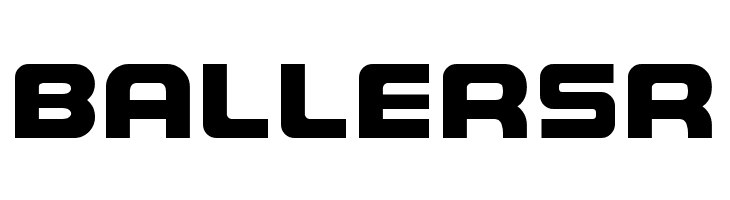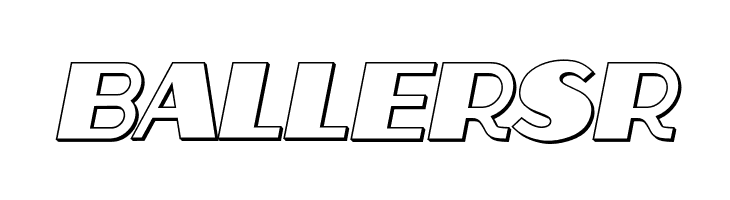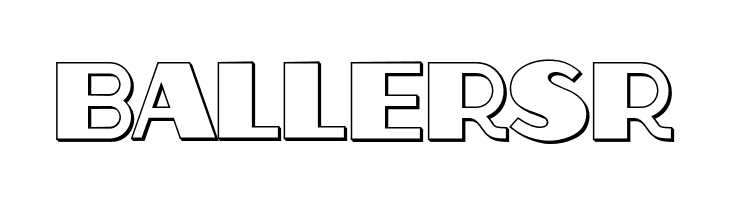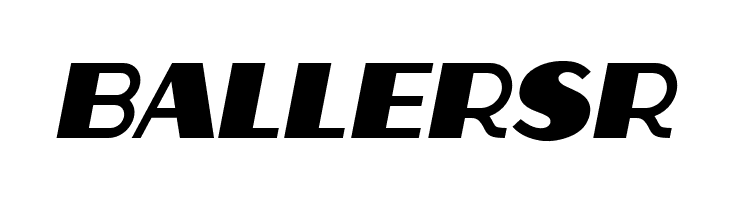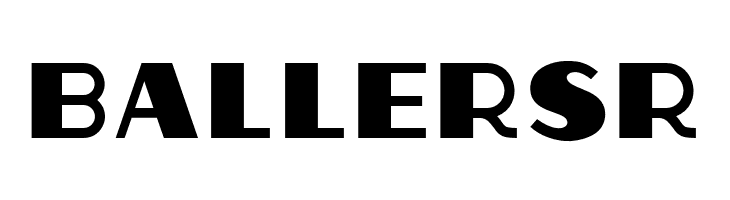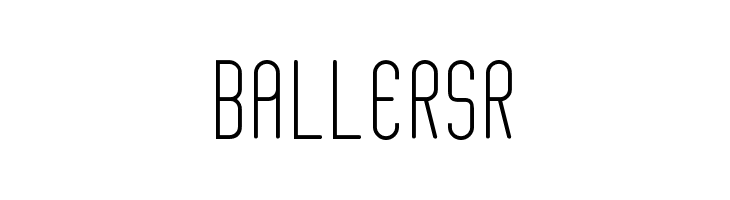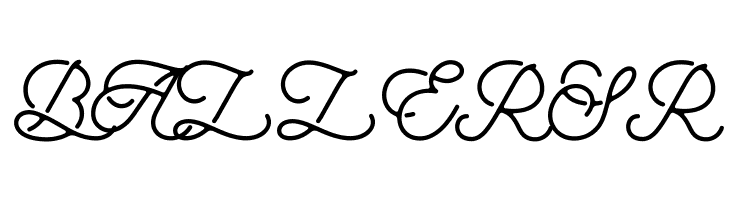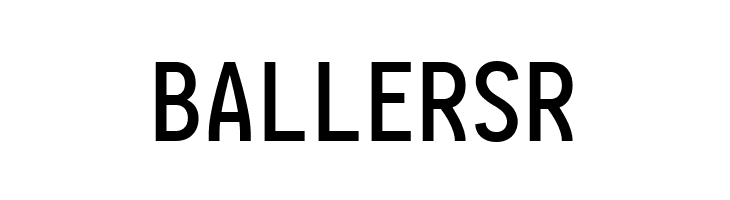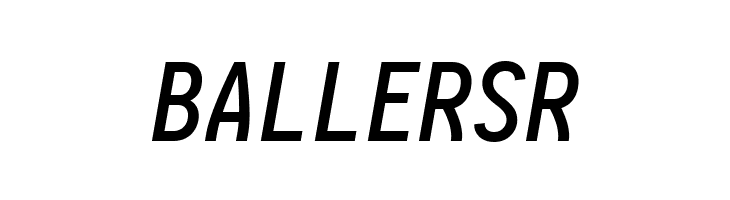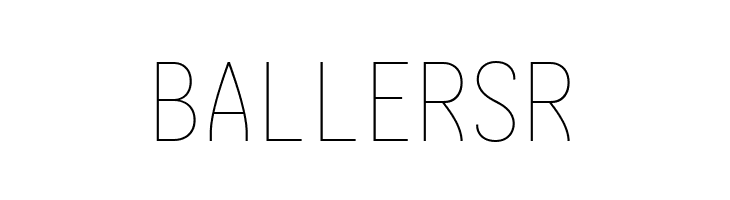
A bold, futuristic font with rounded, geometric letterforms.
A bold, geometric font with sharp angles and a modern aesthetic.
A bold, italicized typeface with a modern, speedy aesthetic.
A vintage, monospaced typewriter-style font with a rough, mechanical feel.
A bold, italic, 3D font with outlined characters for a dynamic look.
A bold, 3D outlined font with a modern and impactful style.
A bold, modern italic font with smooth, fluid strokes and slightly condensed letterforms.
A bold, striking font with thick, uniform strokes and a dynamic feel.
An elegant script font with flowing, decorative swashes and loops.
An elegant script font with intricate loops and flowing connections.
An elegant and flowing script font with ornate uppercase letters and smooth lowercase forms.
An elegant script font with flowing, cursive lines and sophisticated flourishes.
A modern, monospaced font with tall, narrow characters and consistent stroke width.
A pixelated, grid-like font with a retro digital aesthetic.
A clean, monospaced font with a modern aesthetic and excellent readability.
A bold, geometric font with rounded edges and consistent width.
Bold, italicized font with a strong, dynamic presence.
A bold, monospaced sans-serif font ideal for coding and headlines.
A modern, monospaced font with an extra light weight and geometric design.
A clean, extra-light italic monospaced font with a modern aesthetic.
A modern, monospaced italic font with medium contrast and clean lines.
A clean, monospaced font with a modern and geometric design.
A modern, light, and italic sans-serif font with a clean design.
A clean, monospaced font with geometric influences and consistent character width.
A modern, italic sans-serif font with medium contrast and balanced spacing.
A thin, monospaced font with a minimalist and modern design.
An ornate and decorative script font with intricate swirls and flourishes.
A gothic-inspired font with sharp, angular edges and dramatic serifs.
A playful, rounded font with a hand-drawn, whimsical style.
A playful, handwritten font with dynamic strokes and a casual style.